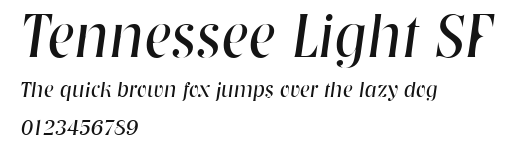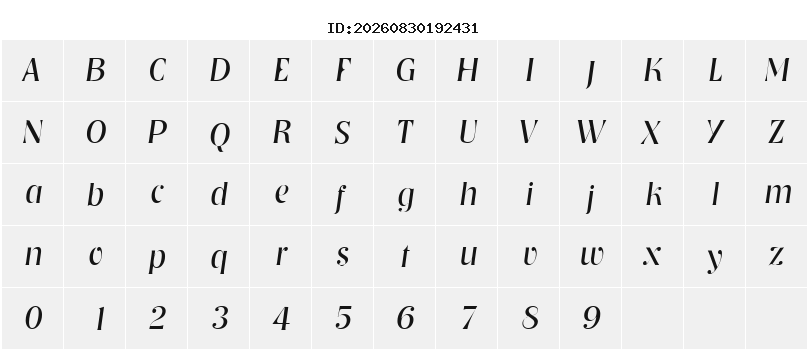
• Font Name: Tennessee Light SF
• Font ID: Altsys Fontographer 3.5 NashvilleLH Italic
• Full Font Name: Tennessee Light SF Italic
• PostScript Name: TennesseeLightSF-Italic
• Character Count: 205
About Tennessee Light SF.ttf
Tennessee Light SF.ttf is a modern, elegant sans-serif font designed for ultimate readability and visual harmony. Perfect for branding, headlines, web design, and print materials.